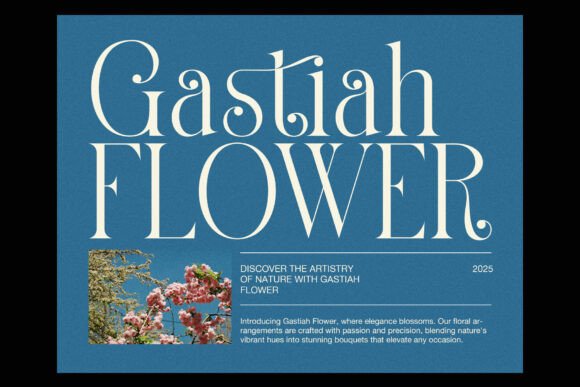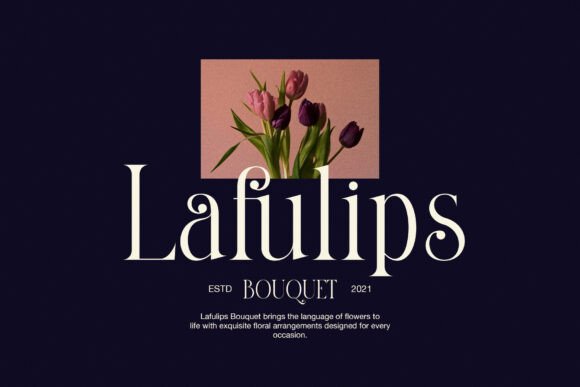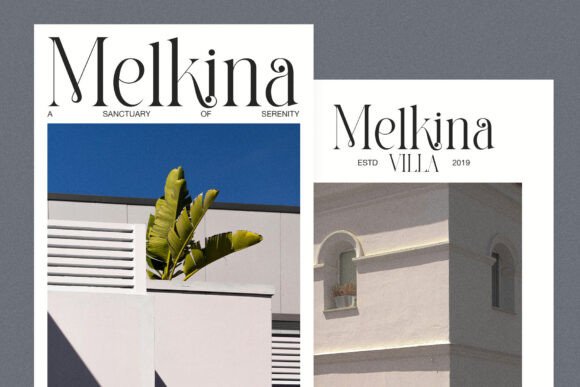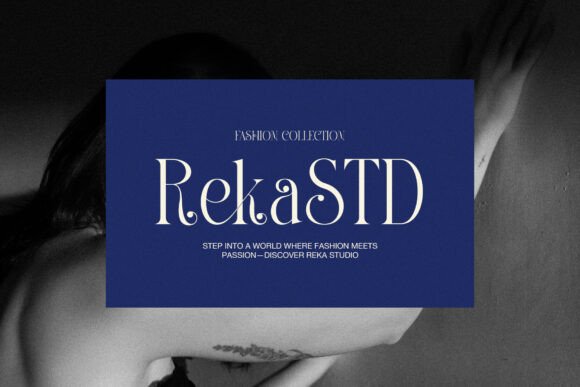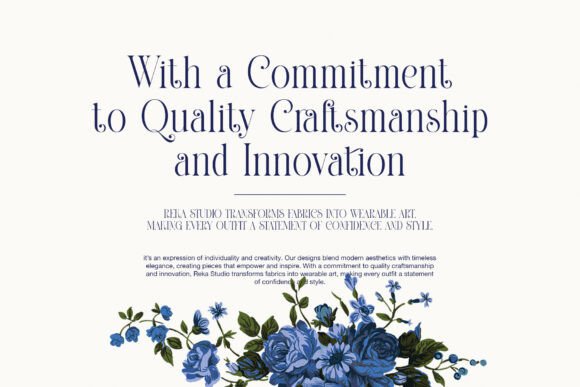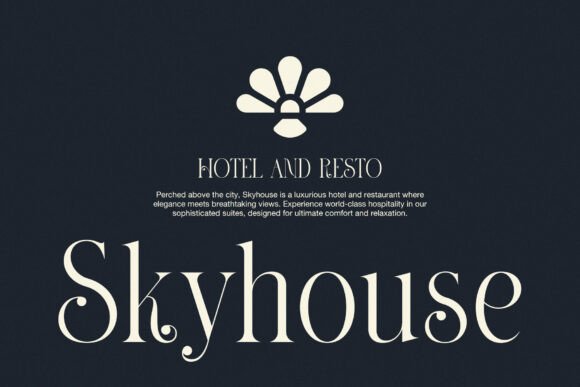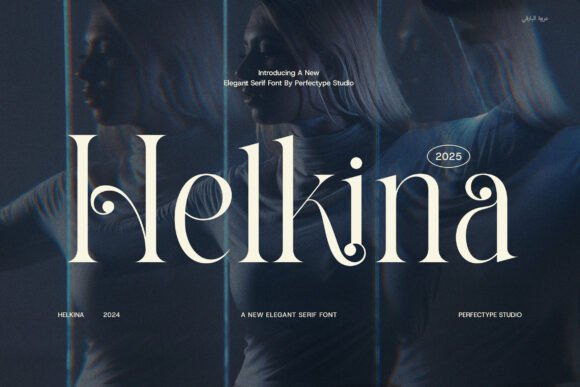
Introducing Helkina: The Ultimate Stylish Serif Font for Modern Designers
In the world of typography, a font can make or break a design project. For designers seeking a typeface that exudes sophistication, elegance, and a touch of modernity, Helkina Stylish Serif Font is an exceptional choice. This modern serif font seamlessly blends classic refinement with a contemporary edge, making it perfect for a wide range of design applications.
The Essence of Helkina: A Perfect Blend of Classic and Modern
Helkina is designed for creatives who appreciate the finer details in typography. Its graceful letterforms, stylish ligatures, and unique alternate characters bring a level of personality and flair to every project. The font’s refined curves and bold contrast strike the perfect balance between timeless tradition and modern minimalism, making it an ideal choice for designers looking to create visually stunning and sophisticated designs.
Key Features of Helkina Font
- Stylish Ligatures: Helkina features beautiful ligatures that add an artistic touch to your text, making it perfect for editorial and luxury branding projects.
- Unique Alternate Characters: The font includes unique alternate characters that allow you to customize your text and add a touch of personality to your designs.
- High Readability: Helkina’s clean structure ensures high readability, making it suitable for body text, headlines, and more.
- Elegant Serif Design: The font’s serif design adds a touch of classic elegance to your projects, while its modern twist keeps it fresh and contemporary.
Ideal Use Cases for Helkina Font
Helkina is a versatile font that can be used in a variety of design projects, including:
- Modern Logos and Brand Identities: Create a lasting impression with Helkina’s elegant and sophisticated design.
- Fashion and Lifestyle Editorials: Add a touch of luxury and style to your editorial designs with Helkina’s refined and artistic typography.
- Luxury Packaging: Elevate your packaging designs with Helkina’s premium and sophisticated look.
- Website Design: Enhance your website’s typography with Helkina’s clean and readable design, perfect for headings and body text.
- Magazine Headlines: Make a statement with Helkina’s bold and elegant serif design, perfect for grabbing attention.
Why Choose Helkina Font?
Helkina offers a unique combination of classic elegance and modern sophistication, making it an excellent choice for designers seeking a high-end typographic experience. Its versatility, readability, and artistic detailing make it perfect for a wide range of design applications.
In conclusion, Helkina Stylish Serif Font is an exceptional choice for designers seeking a sophisticated and elegant typeface. Its unique blend of classic and modern elements, combined with its versatility and readability, make it perfect for a wide range of design projects. Whether you’re working on a luxury branding project, fashion editorial, or website design, Helkina is sure to deliver a premium and stylish typographic experience.
Get Ready to Elevate Your Designs with Helkina